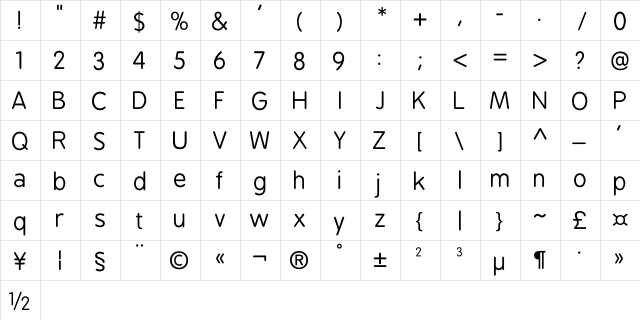
BPreplay Regular
| Foundry | Magenta/George Triantafyllakos |
| Designer | Magenta/George Triantafyllakos |
Design Context for BPreplay Typeface
BPreplay is a composed and adaptable typeface that performs quietly and consistently across a wide range of design contexts.